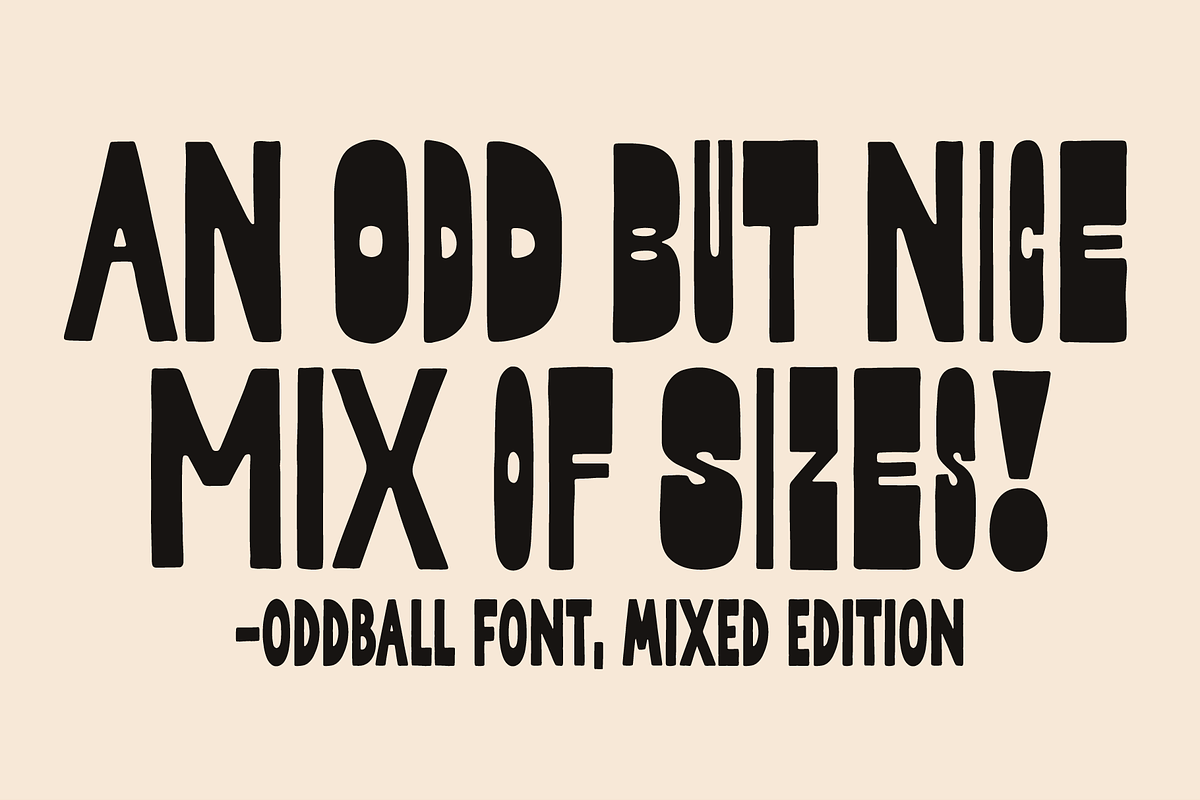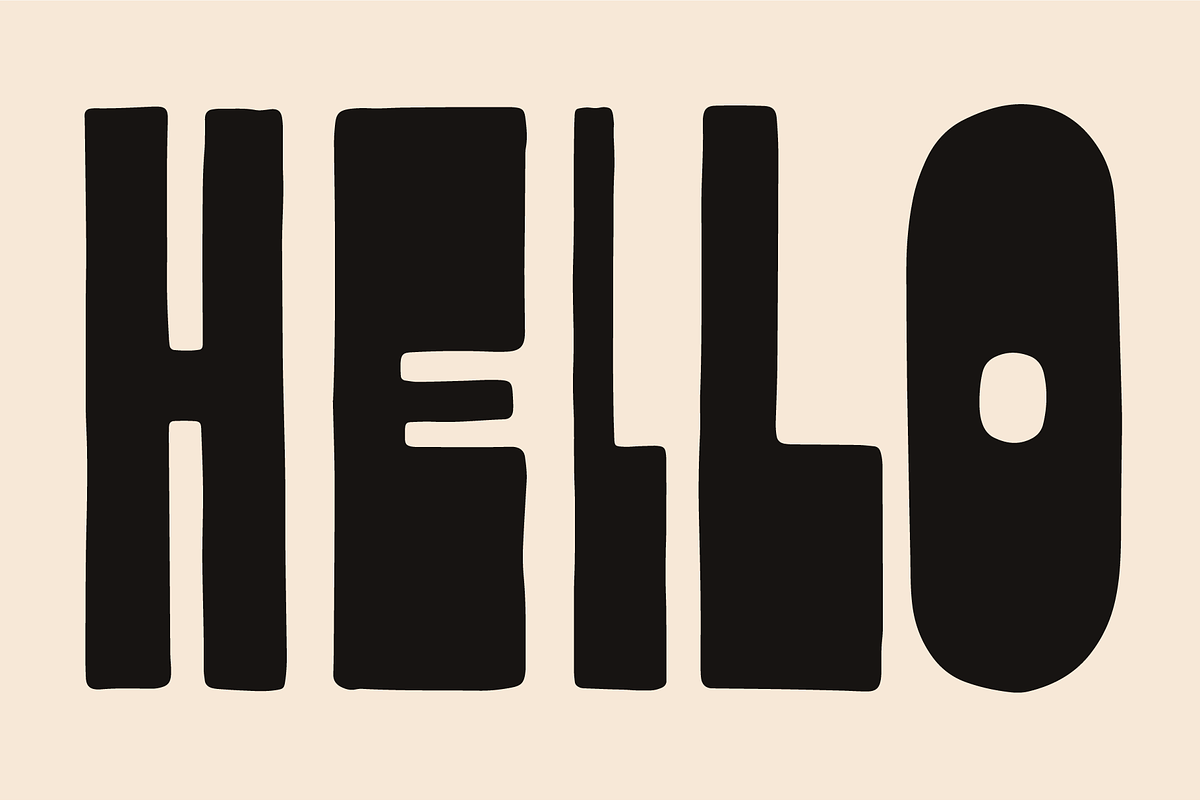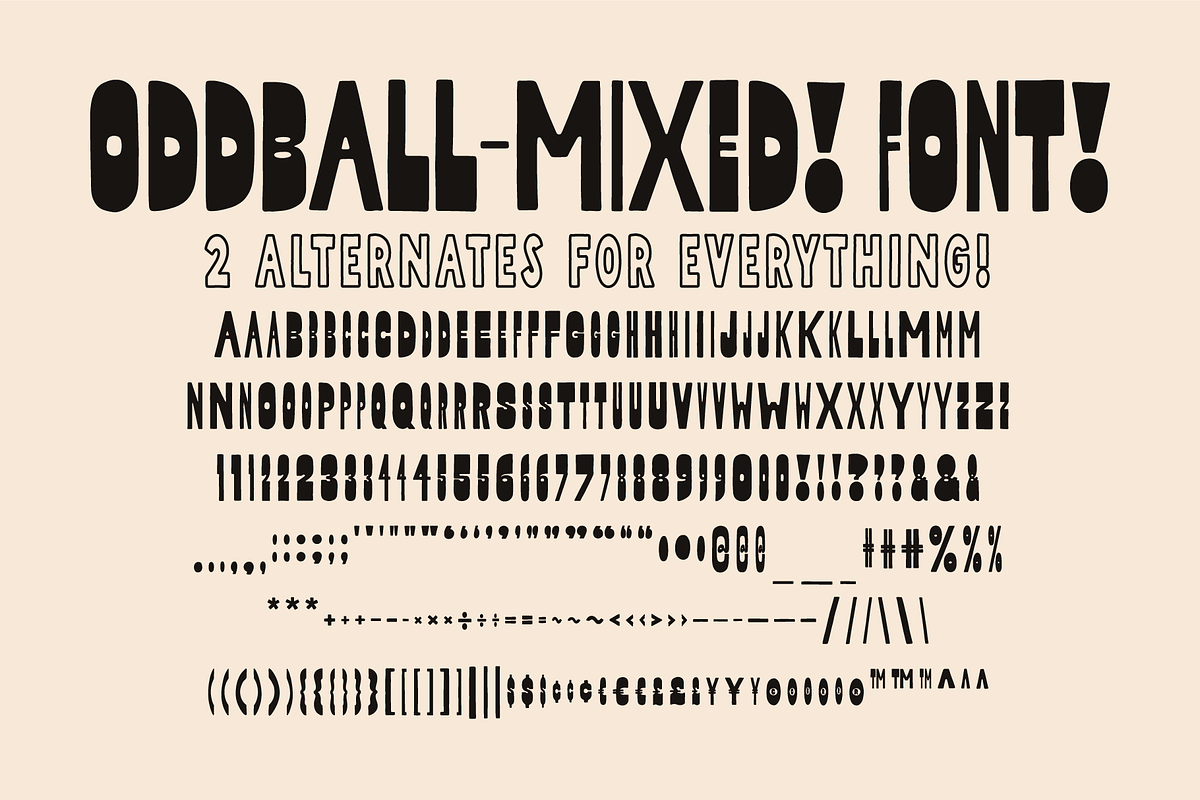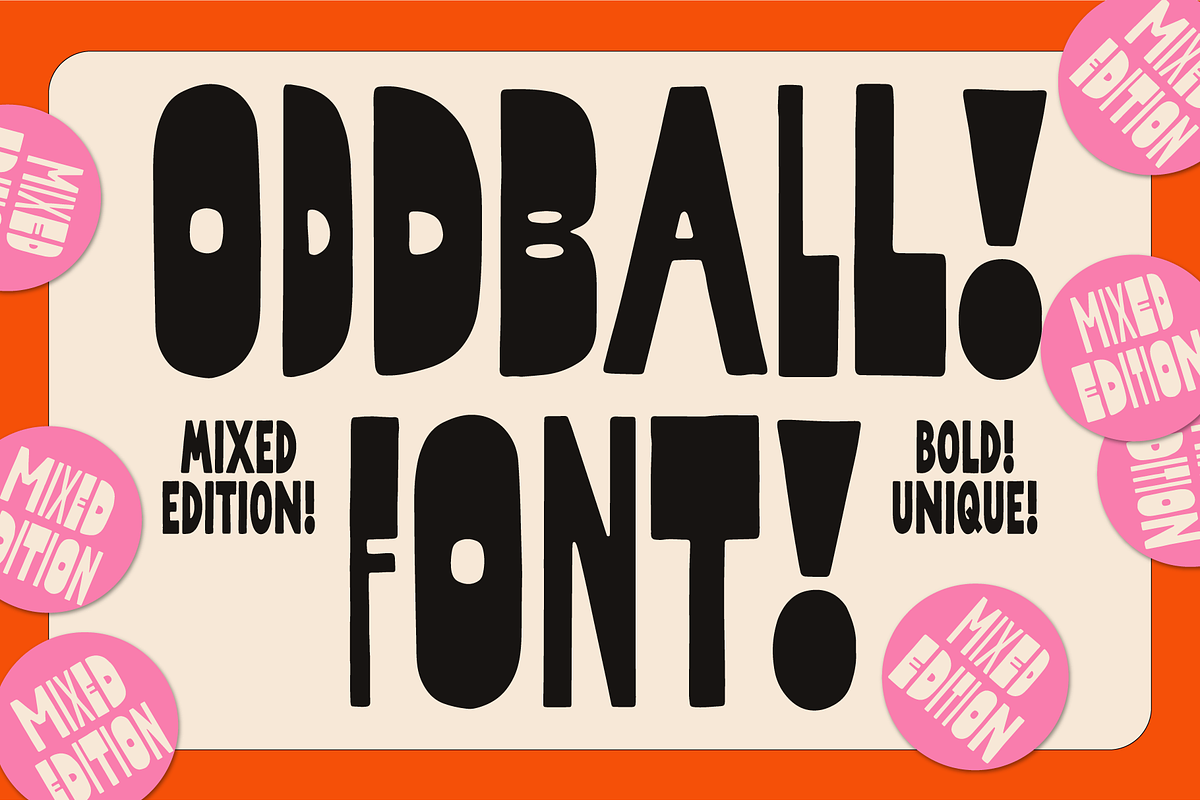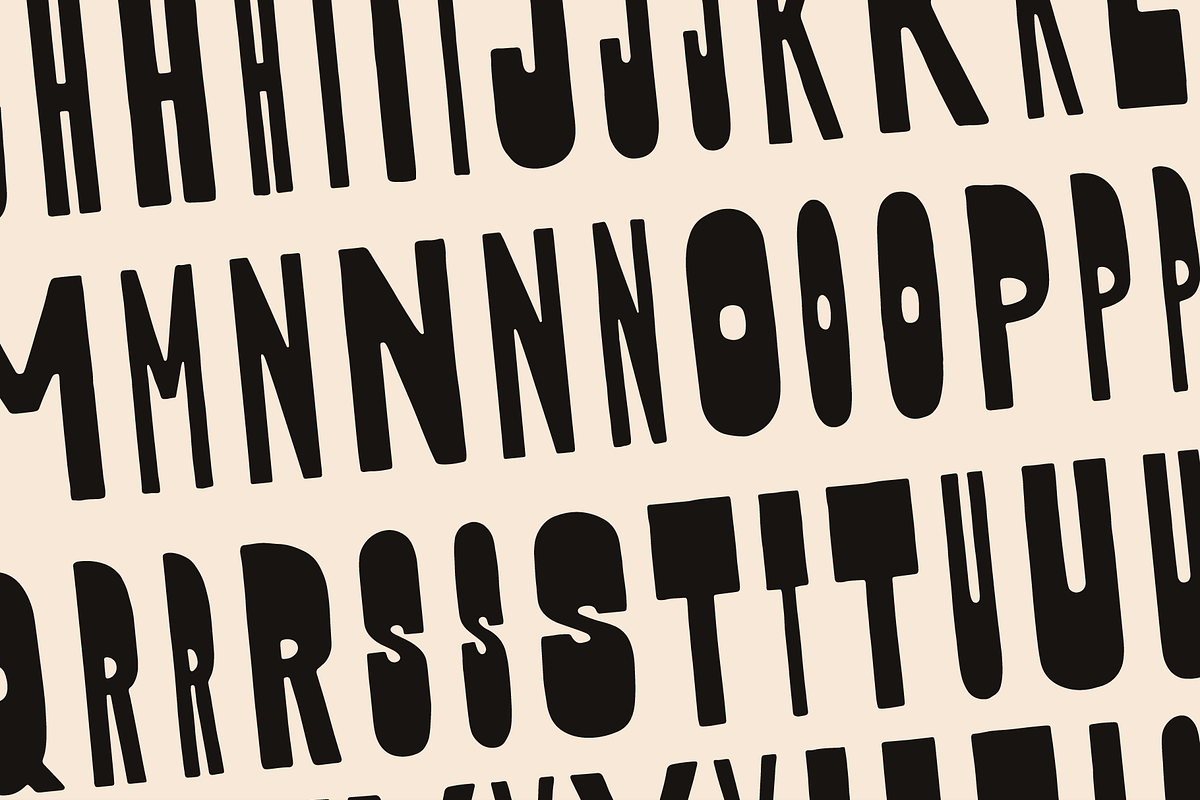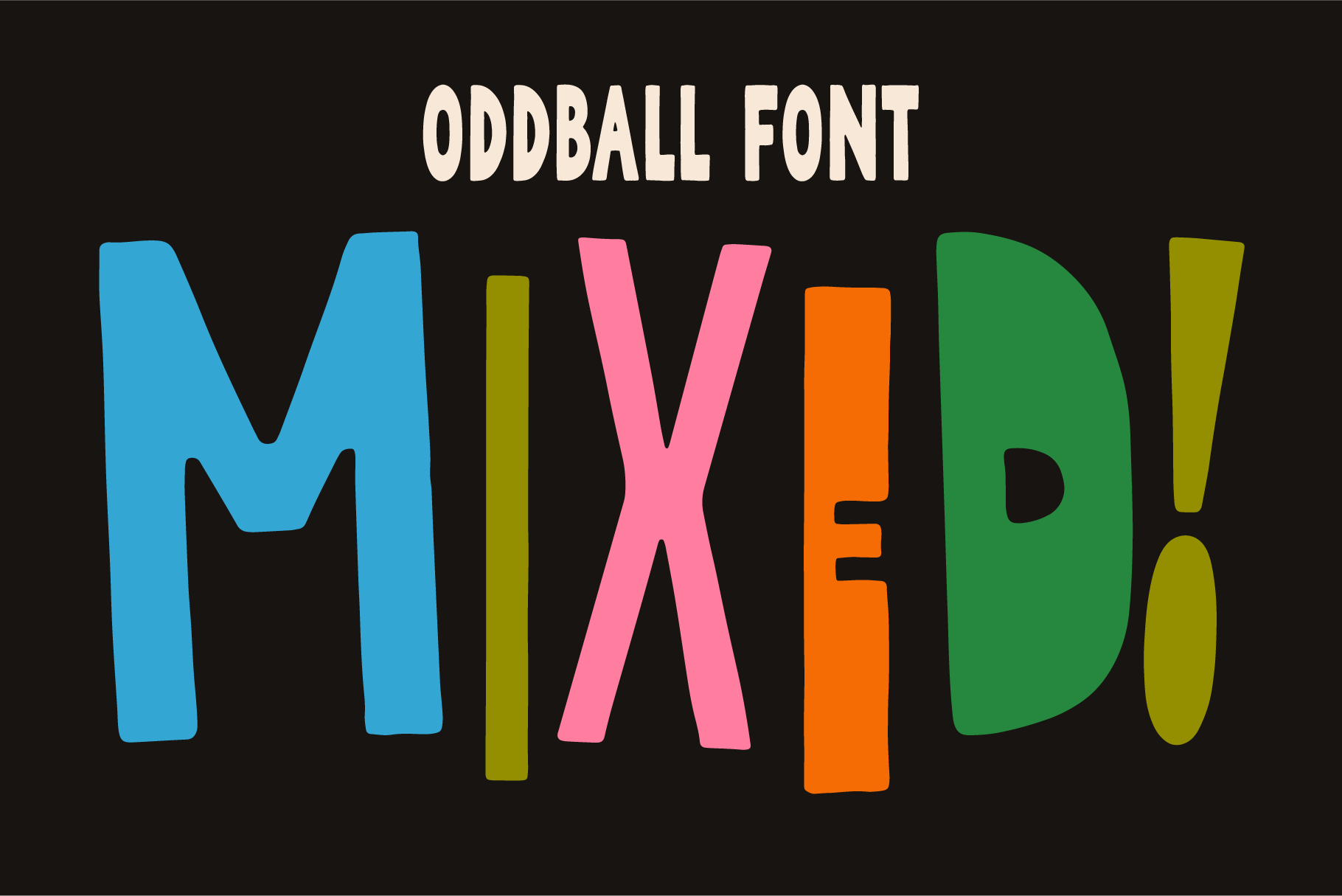
Oddball Mixed - Hand-lettered Font
Oddball-Mixed Edition! A Hand-lettered Font Ouuu Ahhh! Yes, it is candy for your eyes! Please enjoy this mixed edition of Oddball font! This is a wonderfully hand drawn font with 2 alternates for each letter! So get creative and mix it up! There are a variety of wide and condensed characters for a unique, unexpected, and bold look! Oddball-Mixed was inspired by my love of odd things, hand lettering, cool retro stuff, and reverse contrast letter forms.
Also great for logos, quotes, art, signs, and titles! Enjoy!
What's in the font? Uppercase Letters A-Z! Numbers! Symbols! Punctuation! Alternates! (see slides!)